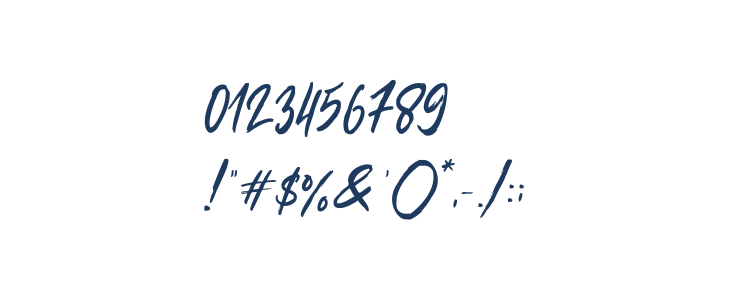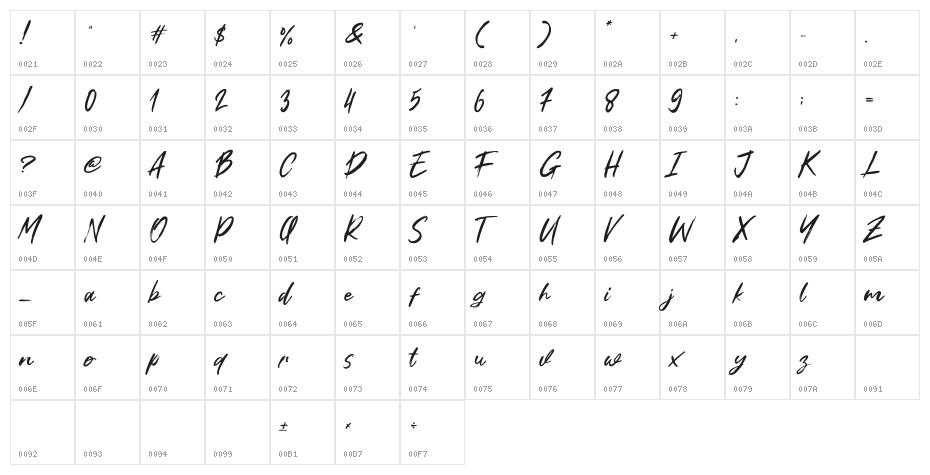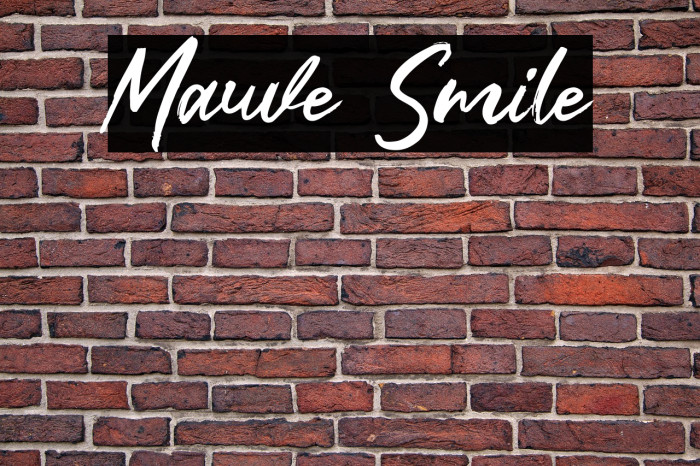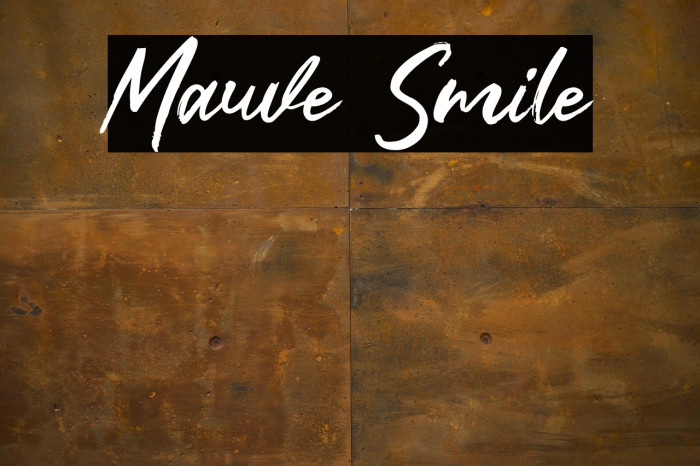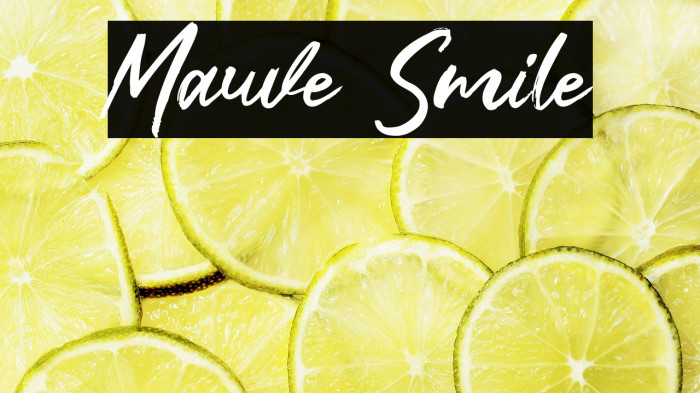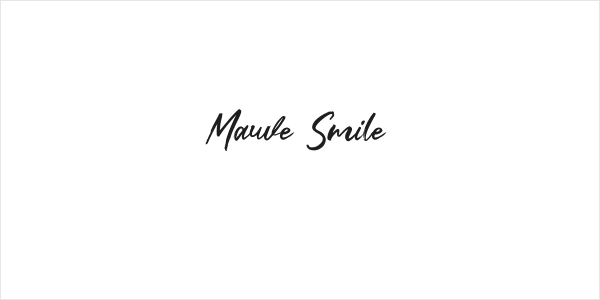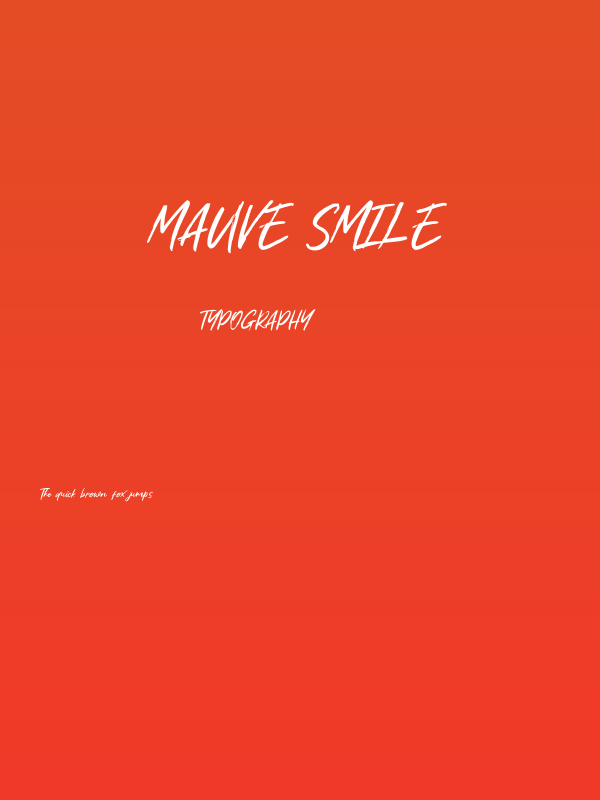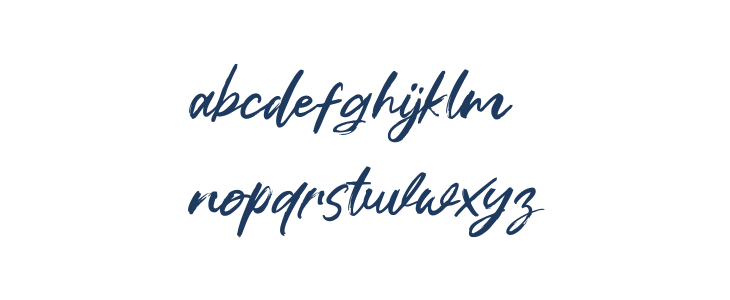
Mauve Smile Font
Mauve Smile Description
This font features a dynamic and expressive handwritten style, characterized by its bold and energetic strokes. The uppercase letters are particularly striking, with a sense of movement and flair that suggests a brush or pen in motion. The lowercase letters maintain this fluidity, offering a cohesive look across both cases. Numbers and special characters are equally bold, ensuring consistency throughout. The overall appearance is both artistic and modern, making it suitable for creative projects that require a personal touch.
| Overall Style | Modern, Artistic |
| Proposed Projects | Ideal for branding, posters, invitations, and any project seeking a personal, artistic touch. |